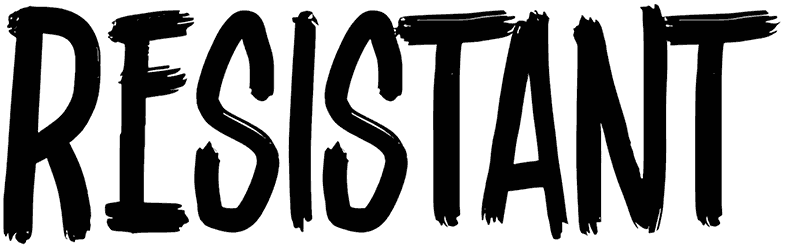
Resistant Font
Let us introduce a modern and natural brush font that is able to create a striking face for your project. Resistant has bold and cool hand-drawn letters and conveys an artistic vibe. This script font doesn’t offer lowercase letters and some numbers, but it could illustrate your projects like apparel, flyers, postcards, and whatnot, with an unforgettable mood.